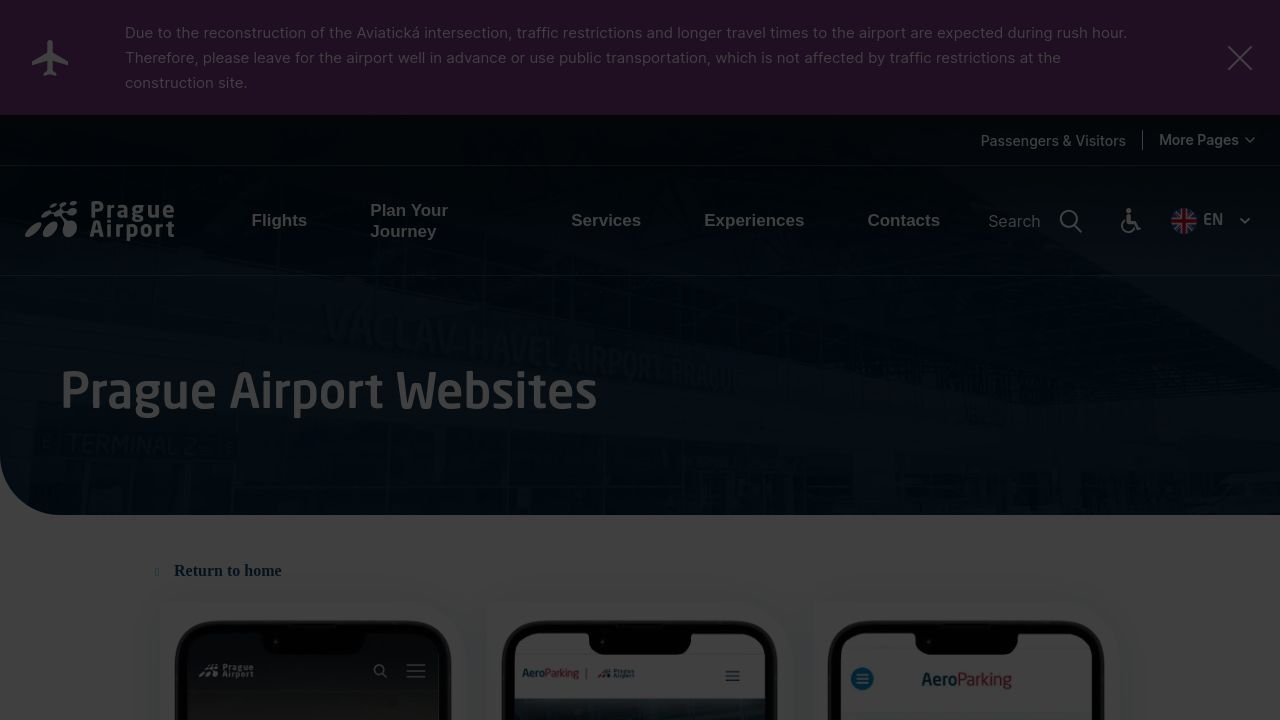
At prg.aero, the choice of fonts reflects the airport's commitment to clarity and functionality in the aviation industry. Using Roboto in weights 300, 500, and 700 ensures legibility and accessibility for travelers. Custom fonts like helvetica-neue and Inter enhance the site's visual identity, providing a contemporary feel. The inclusion of icons from swiper-icons and IcoMoon contributes to intuitive navigation, making information easy to access for all visitors.
font-family: 'Neo Sans Pro', sans-serif;font-family: 'prgweb', sans-serif;These fonts are listed in the CSS as backups. The browser only falls back to them if the main fonts above fail to load.
prg.aero primarily uses Roboto, helvetica-neue, Inter, and various custom icons like swiper-icons and IcoMoon for their website.
Roboto offers excellent legibility and is versatile across different weights, making it a strong choice compared to alternatives like Arial or Helvetica.
prg.aero uses various weights for Roboto (300, 500, 700) and has custom fonts like Neo Sans Pro in weights 300 and 500, as well as others in normal and 400 weights.
If custom fonts are not available, prg.aero falls back on Arial and Helvetica to ensure text remains readable and consistent across all devices.